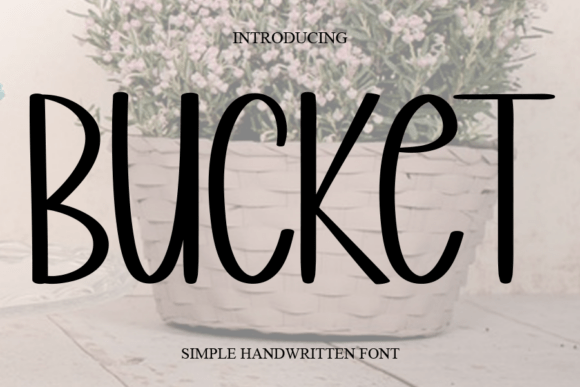
Discover the Magic of Bucket Font: Elevate Your Design
Have you ever stared at a blank canvas, feeling like the perfect idea is just out of reach? I know I have – it’s like waiting for the perfect storm of creativity to strike. But sometimes, all it takes is the right tool to unlock that spark. For designers, the perfect font can be just that game-changer.
Enter Bucket Font, a timeless and elegant handwritten font that’s sure to bring your designs to life. Whether you’re crafting eye-catching logos, branding materials, or quotes, this beautiful font is the perfect companion. With every letter imbued with a unique and beautiful touch, Bucket Font adds a level of sophistication and personality to your work that’s hard to resist.
As a designer, you know that the right font can make all the difference in communicating your message and capturing your audience’s attention. That’s why Bucket Font is a valuable addition to any designer’s toolkit – it’s a font that will help you stand out from the crowd and leave a lasting impression.
Bucket Font Key Features
- Font Family: Bucket Font is a sans-serif font family with a unique, rounded design.
- Character Set: Includes a comprehensive character set, including Latin, Cyrillic, and Greek alphabets, as well as punctuation and special characters.
- Unique Characteristics: Bucket Font features a distinctive rounded design, with subtle curves and rounded edges, making it suitable for modern and playful designs.
Design Review: Bucket Font
Overall, I think Bucket Font is an interesting addition to the world of typography. Here are some of its highlights: ✨
- Unique design: The font’s playful, hand-drawn style gives it a lot of character and makes it stand out from more traditional fonts.
- Good for creative projects: Bucket Font’s quirky feel makes it perfect for projects like social media graphics, posters, and children’s book illustrations.
- Customizable: The font comes in a range of weights and styles, allowing designers to tailor it to their specific needs.
However, there are also some limitations to consider: ⚠️
- Legibility issues: The font’s irregular shapes and letterforms can make it difficult to read at smaller sizes or in situations where clarity is paramount.
- Limited application: While Bucket Font is great for creative projects, it may not be the best choice for more formal or professional applications.
Overall, I think Bucket Font is a solid choice for designers who want to add some personality to their work. While it may not be suitable for every project, it’s definitely worth considering for those that require a bit of whimsy and flair.
Tip: Use Bucket Font for bold, playful headings to add a touch of whimsy to your designs.
Tip: Use Bucket Font for creating custom illustrations or graphics that require a unique, hand-drawn feel.
Tip: Use Bucket Font for adding a personal touch to your presentations or documents, such as using it for headings or titles.
Bucket Font is ideal for:
- Playful branding and marketing materials.
- Custom illustrations and graphics.
- Adding a personal touch to presentations and documents.
Montserrat is a sans-serif font designed for urban environments. It’s a great alternative to Bucket Font for titles and headings in modern designs. Montserrat is more geometric and structured, making it suitable for digital displays and print materials. It’s a versatile font that can be used for various design projects.
Comparison to Bucket Font: Montserrat is more geometric and has a stronger structure, while Bucket Font is more rounded and playful.
Great Vibes is a script font that’s perfect for creating a fun and casual atmosphere. It’s a great alternative to Bucket Font for designs that require a more relaxed tone. Great Vibes is ideal for headings, titles, and short paragraphs in creative projects like wedding invitations, event promotions, and social media posts.